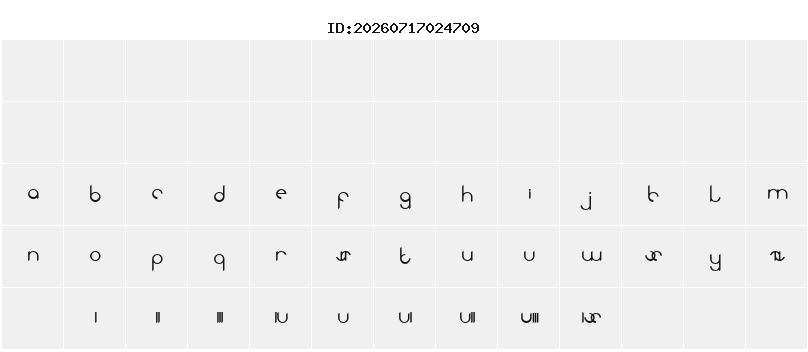
ABC  Version Two Preview
• Font Name: ABC Version Two
About ABC Version Two.ttf
ABC Version Two.ttf is a modern, elegant sans-serif font designed for ultimate readability and visual harmony. Perfect for branding, headlines, web design, and print materials.